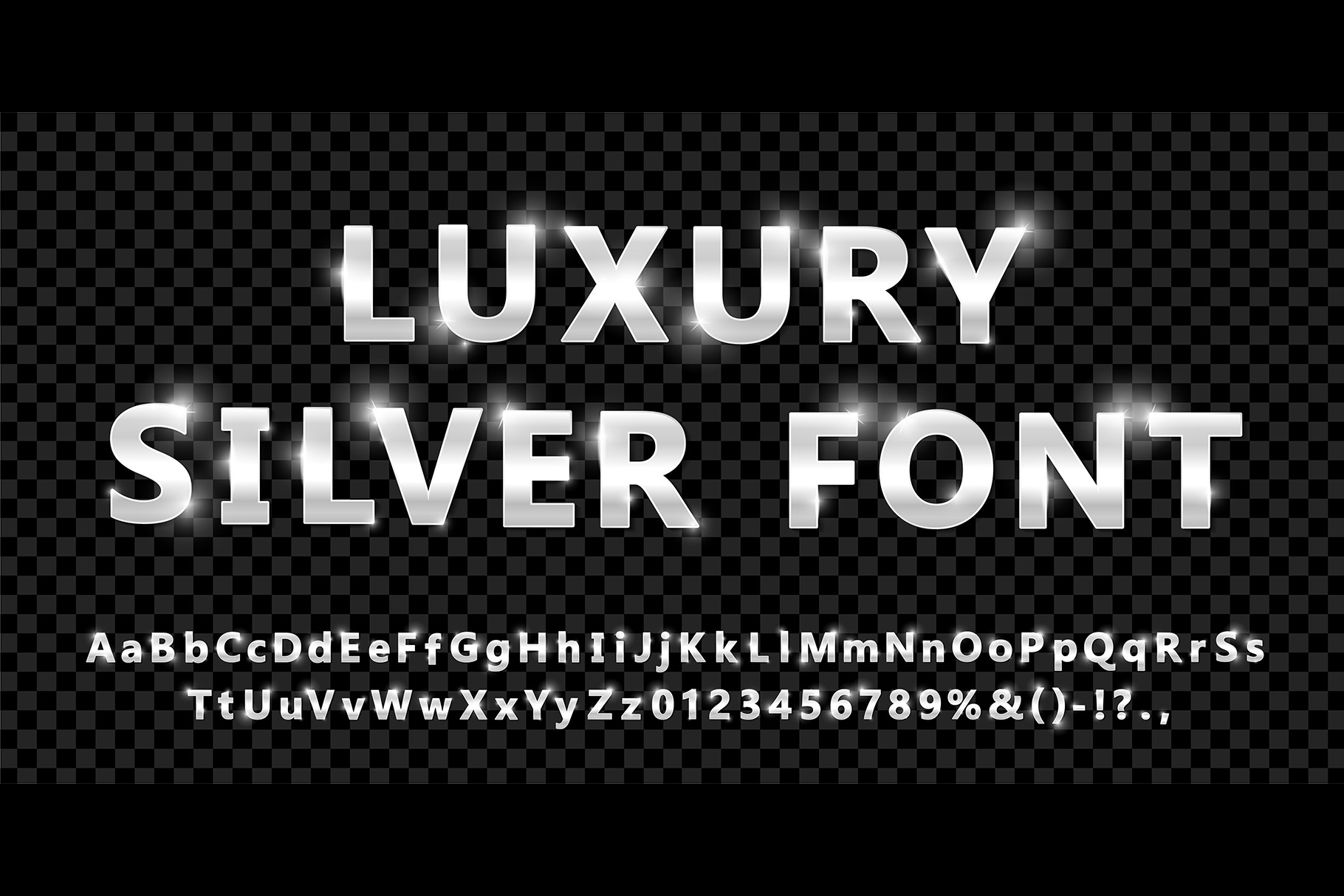
Shiny modern silver font isolated
Shiny modern silver font isolated on transparent background. Vintage platinum numbers and letters with shadows. Detailed 3d alphabet. Typography metal steel bold mockup. Anniversary letters. Vector